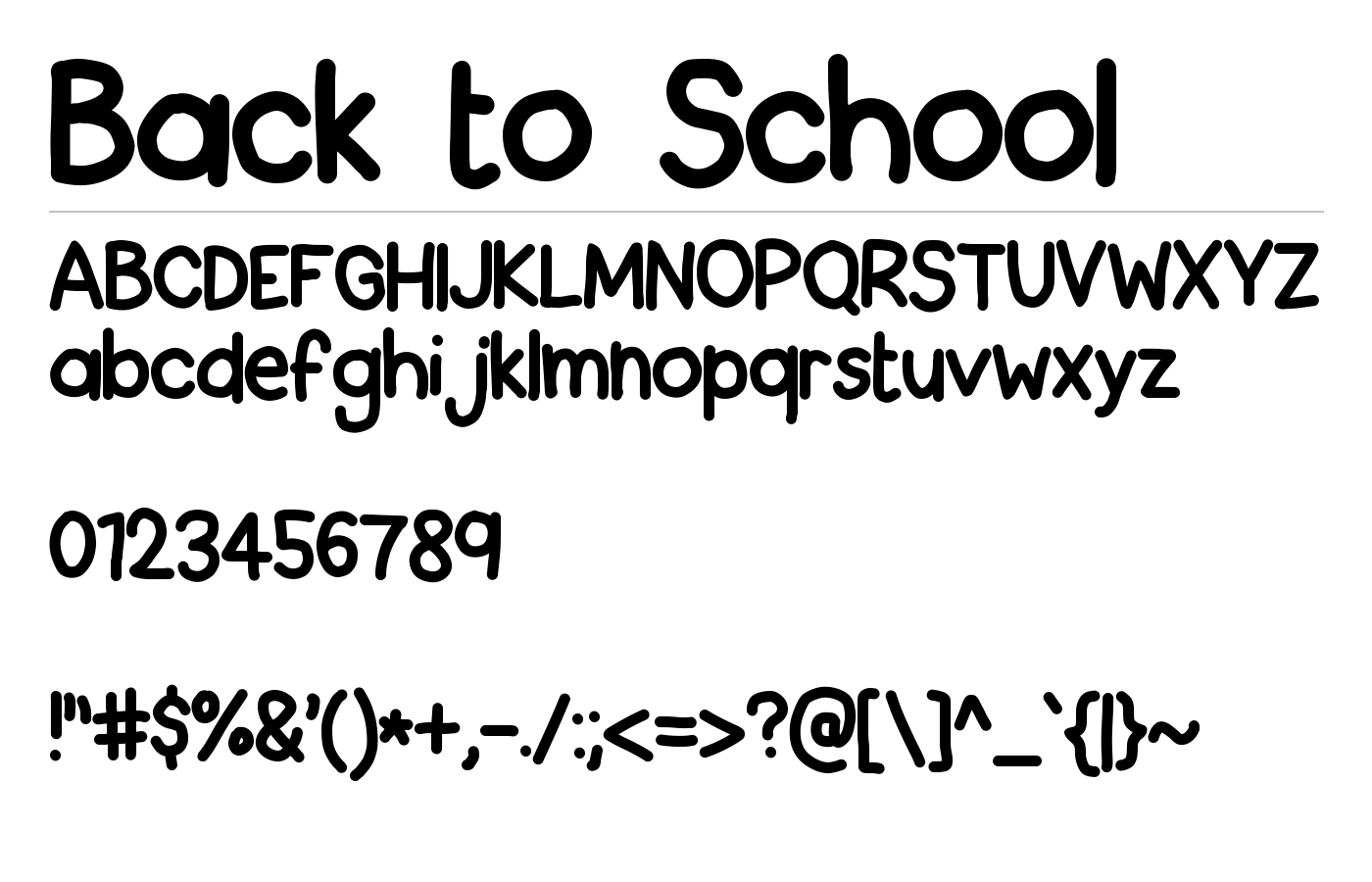
Back to School is a playful, rounded sans serif font with a friendly, hand-drawn feel that evokes a casual and approachable atmosphere. Its smooth, uniform strokes and moderate x-height make it highly readable, perfect for children's materials, educational projects, or fun, informal branding. This font works well in headlines, posters, and packaging where a warm, inviting tone is desired.
Back to School Font
About Back to School Font